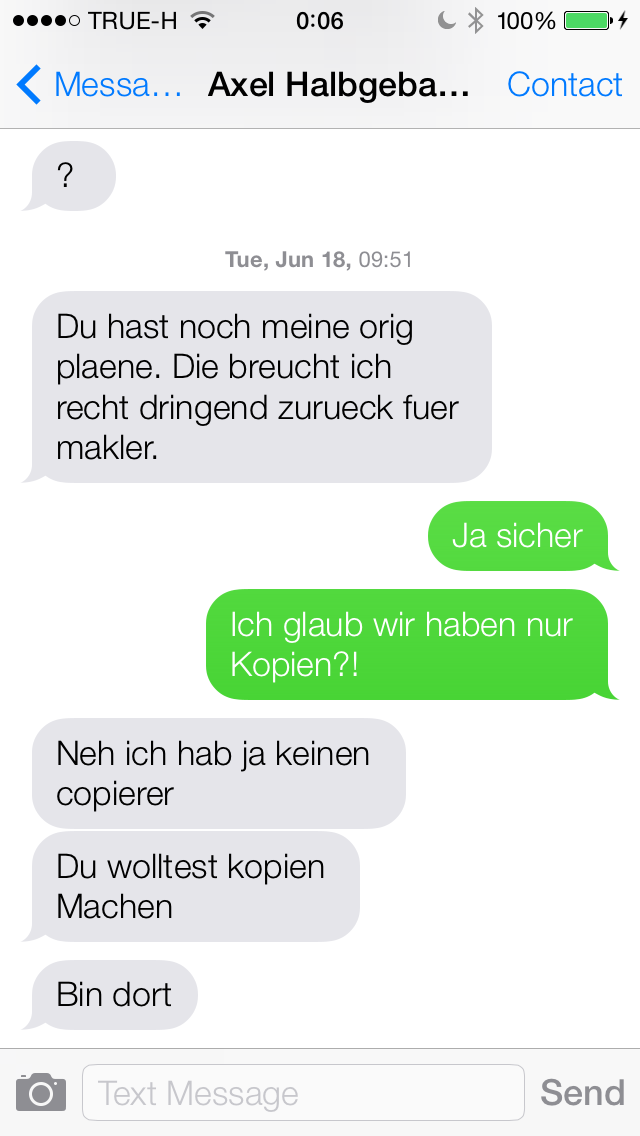
It's a shame about the fonts. Messages look bold now and everything else is starting to look more like ios 6. Why not keep the thinner font and provide an accessibility option for those that struggle to read it?
Agreed, the thinner font was nicer, more graphics to see, you can already change the size anyway, ...make thickness an option! :)
Emboldening type creates a visual hierarchy so having smaller bolder type with lighter headings gives an uneasy balance over all. Its subtle and not many people would be able to notice whats wrong but it wouldn't feel/look right. Thats why they've gone up a weight on everything, to keep the balance.
I said above a certain size; i.e - ultra light for most text and bolder for larger text (headings etc.) which I think would be nice and natural.
I dunno, I just don't like bold on smaller text; I thought the ultra light looked really nice as a standard font, but I didn't think it worked so well at larger sizes.
I said above a certain size; i.e - ultra light for most text and bolder for larger text (headings etc.) which I think would be nice and natural.
I dunno, I just don't like bold on smaller text; I thought the ultra light looked really nice as a standard font, but I didn't think it worked so well at larger sizes.
If you embolden above a certain seize that means you are keeping the thinner font for the smaller sizes which is the problem.
Unless Im misreading your post?!
I can delete specific messages within a text.
Broken in beta 2.
But it still crashes the app from time to time when I delete them.
finally apple(or youtube?) has brought back backgrounding youtube videos!
am I the only one happy to about this? I used to use this all the time! when they removed it. I was upset...glad it's back
Does anyone have any knowledge on this issue?